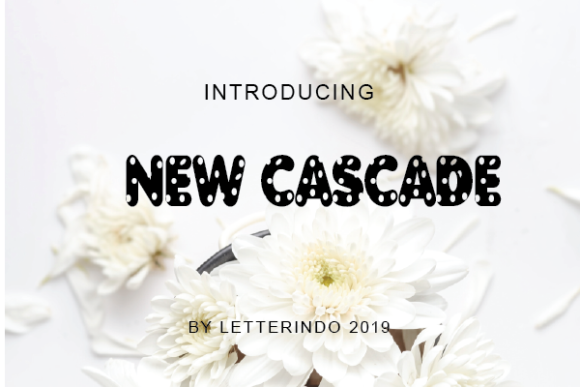
Step into a world of creativity and charm with New Cascade, a playful display font adorned with polka dots. Its charming characters, reminiscent of a child's game of connect the dots, will bring a touch of lightheartedness and whimsy to your digital designs.
With New Cascade, you can craft unique and memorable digital greetings. Its playful charm will make birthdays, anniversaries, and special occasions that much more special. Imagine the delight on the recipient's face as they open a personalized message presented in this delightful font.
Unleash your imagination and create captivating social media posts. New Cascade's ability to grab attention will make your posts stand out from the crowd. Whether you're sharing photos, videos, or blog posts, New Cascade will give your content a vibrant, eye-catching appeal.
For crafters, New Cascade offers endless possibilities. Design stunning greeting cards that are sure to be cherished by friends and family. Create beautiful stationary art that will transform any room into a gallery of creativity. The font's playful spirit will bring a smile to anyone who sees it.